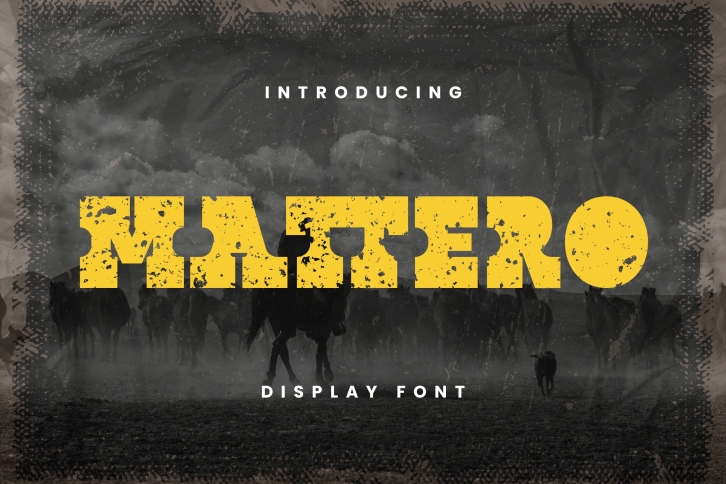
Mattero is a cool, bold and western looking display font. It is imposing and features uniquely shaped letters, and as a result, it will easily match a wide range of creations that require a distinct touch.Â